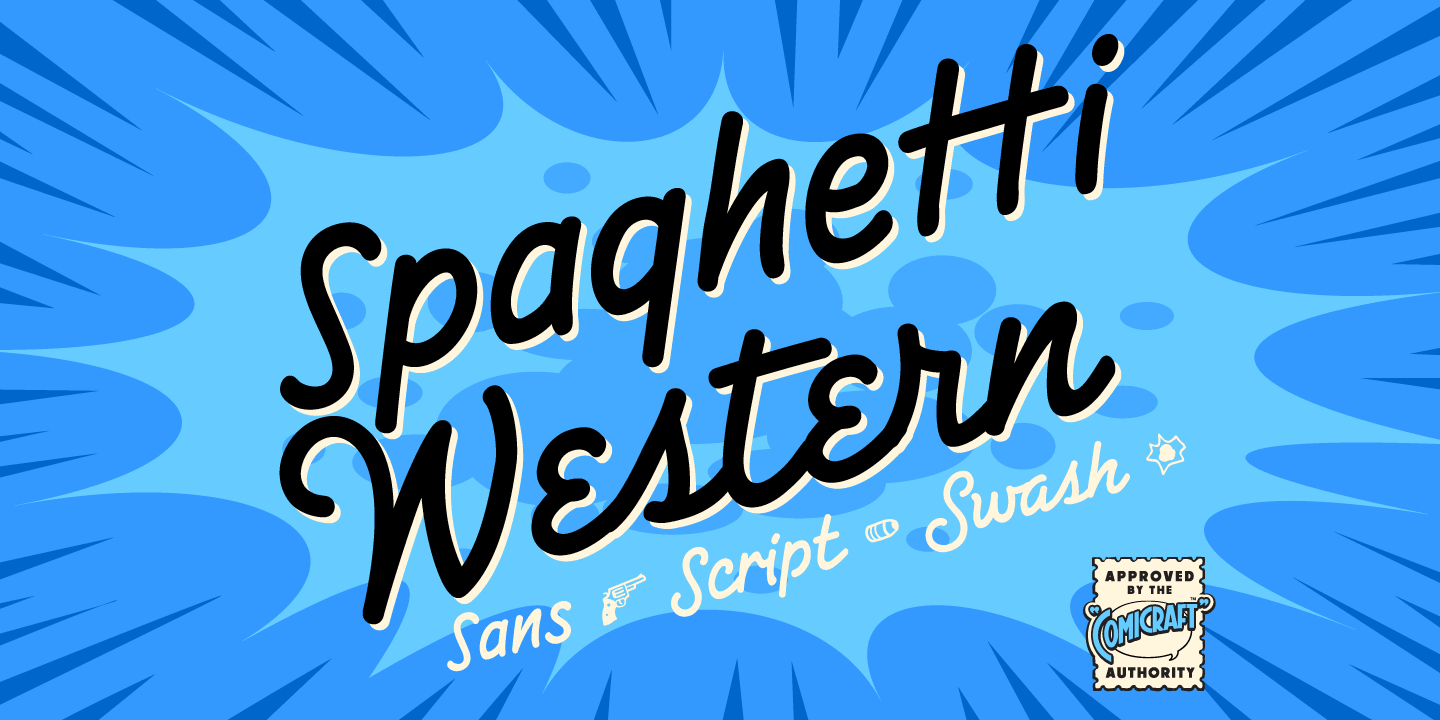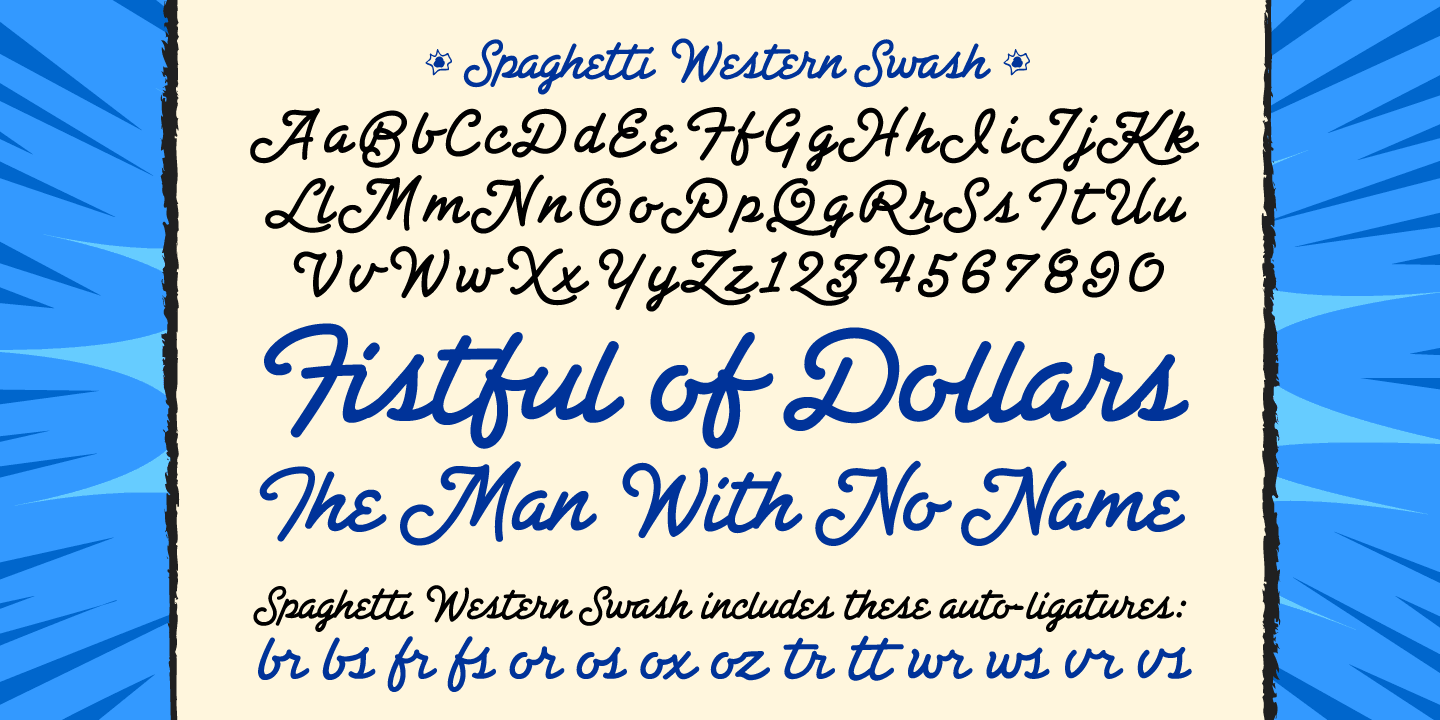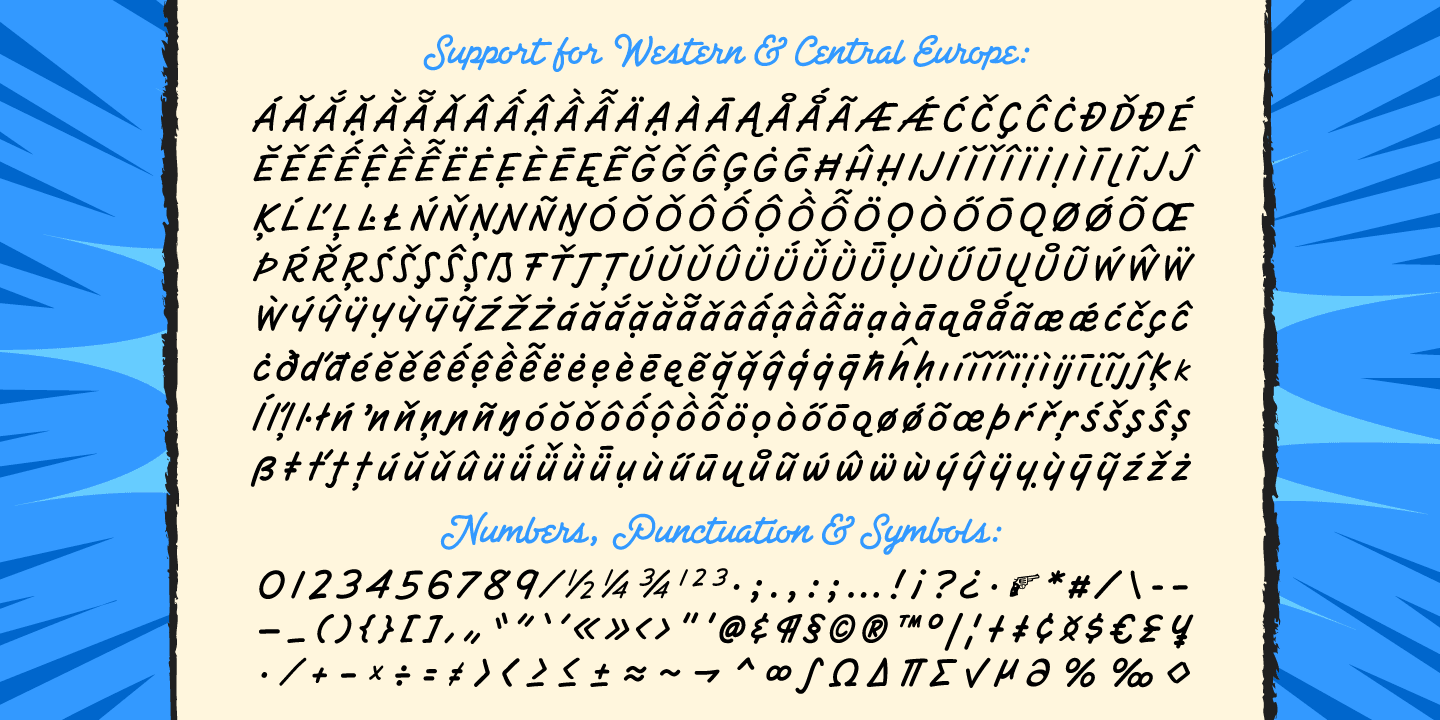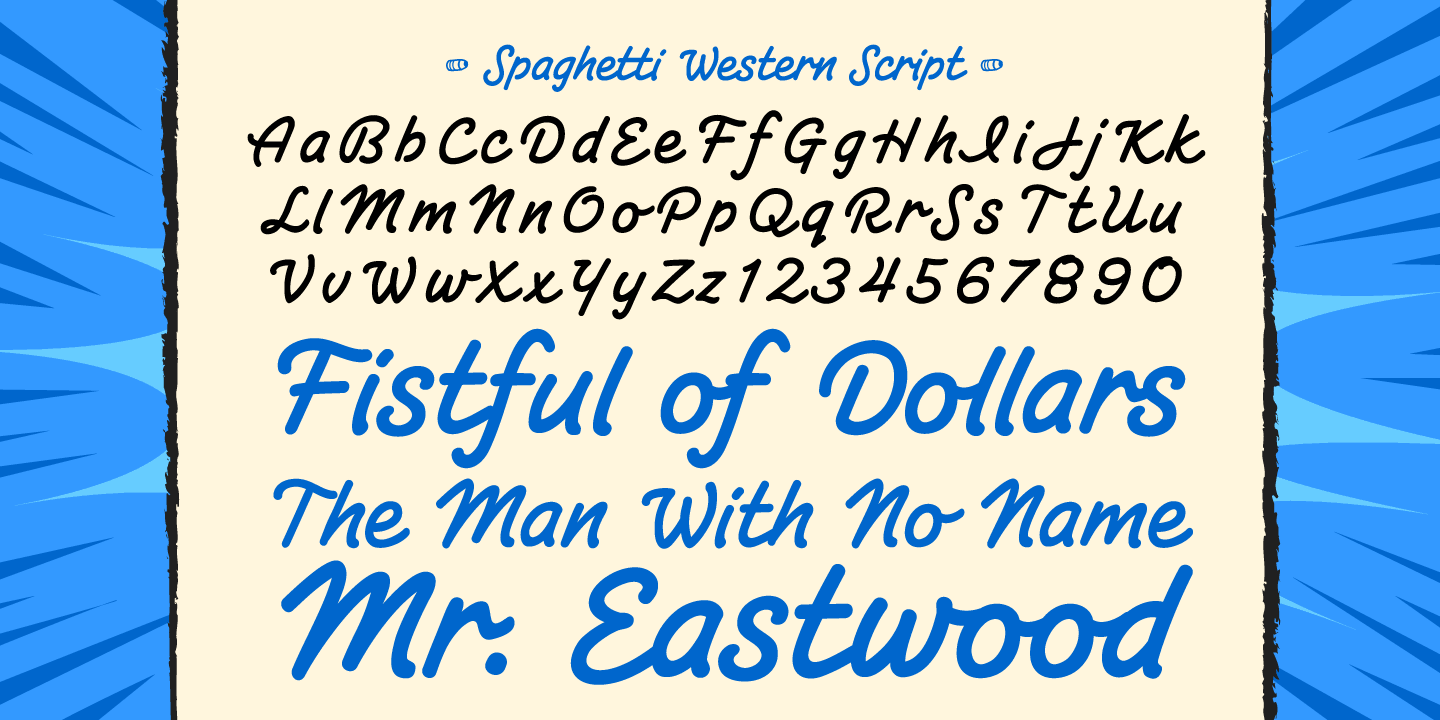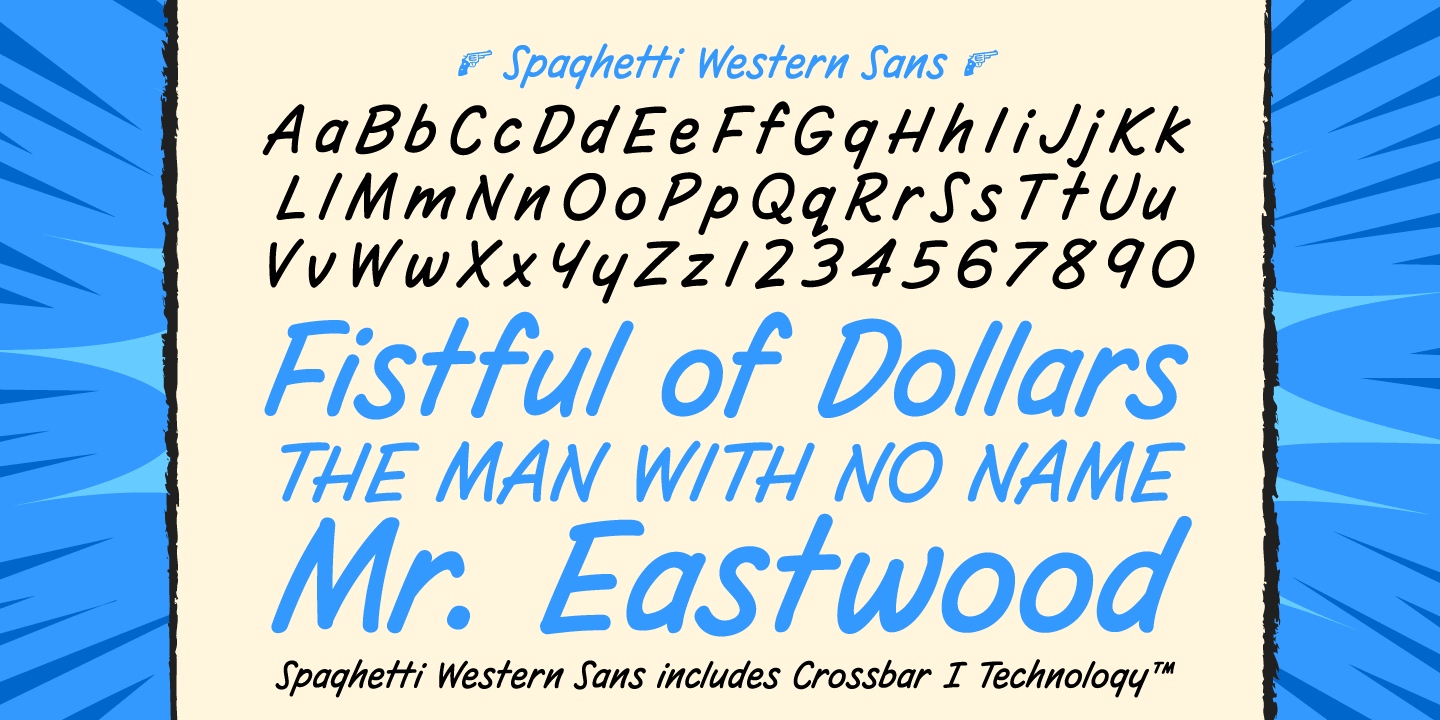
Spaghetti Western CC
Font Family by Comicraft Fonts
If you're a man with no name and you like your Westerns a little more continental, we've got a Fistful of Fonts for you! Load up your guns with our dynamite new offering, Spaghetti Western. Lip synch the Good, the Bad AND the Ugly scripts you're presented with and we guarantee that Spaghetti Western will make Spanish lettering look a little bit more Mexican. Don't try to understand 'em, just rope and throw and grab 'em!
Spaghetti Western Sans
Spaghetti Western Script
Spaghetti Western Swash